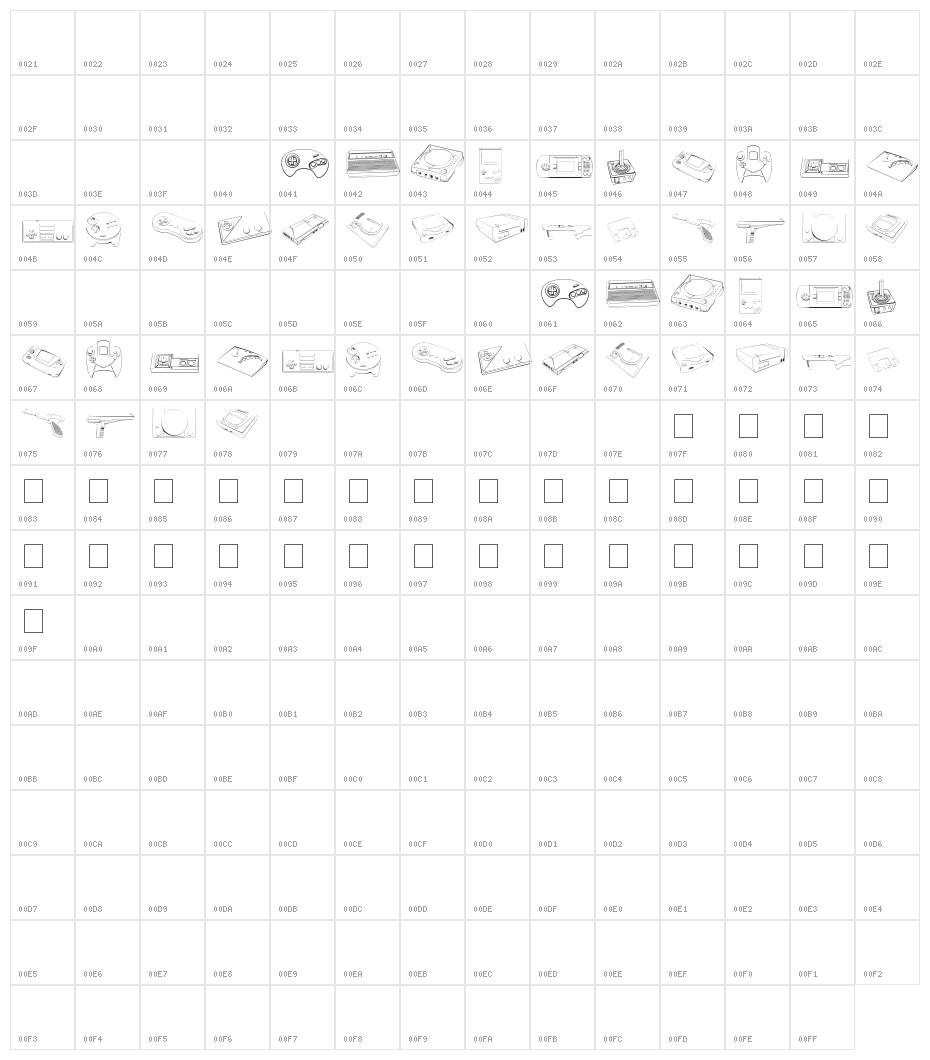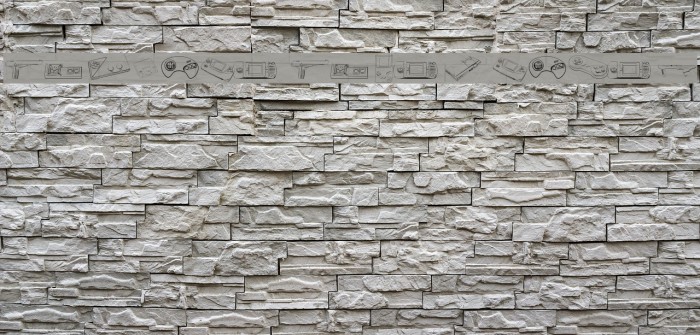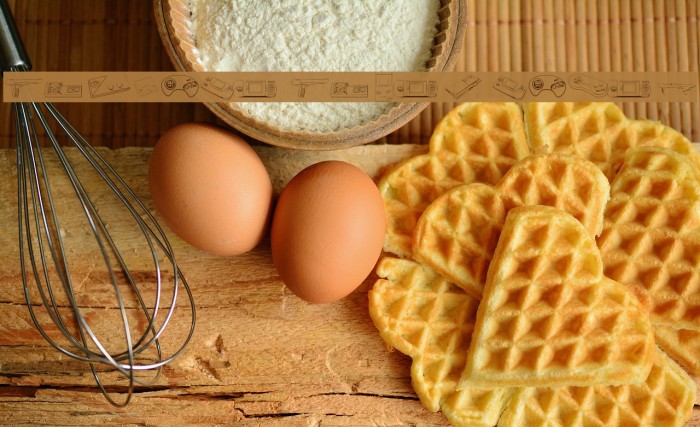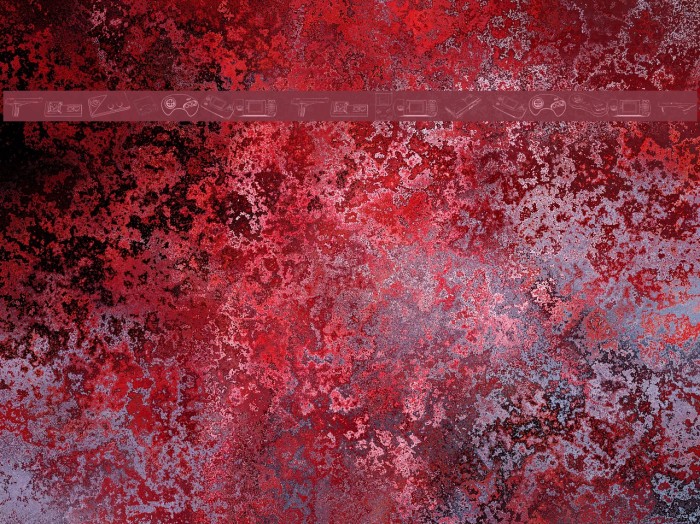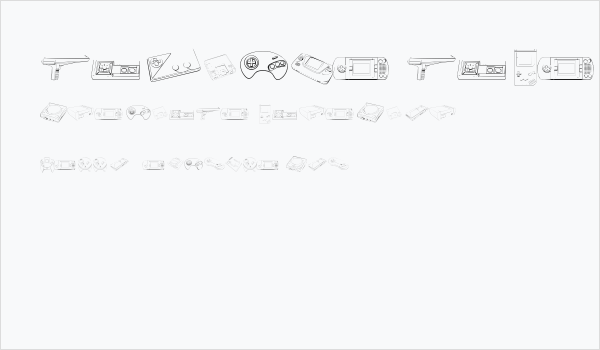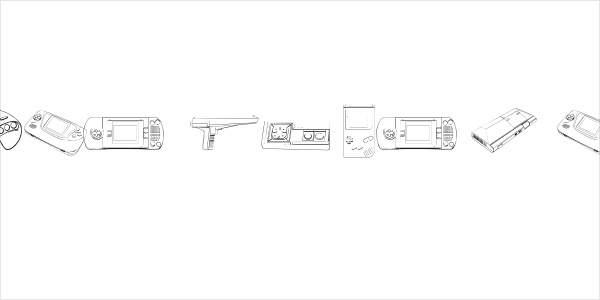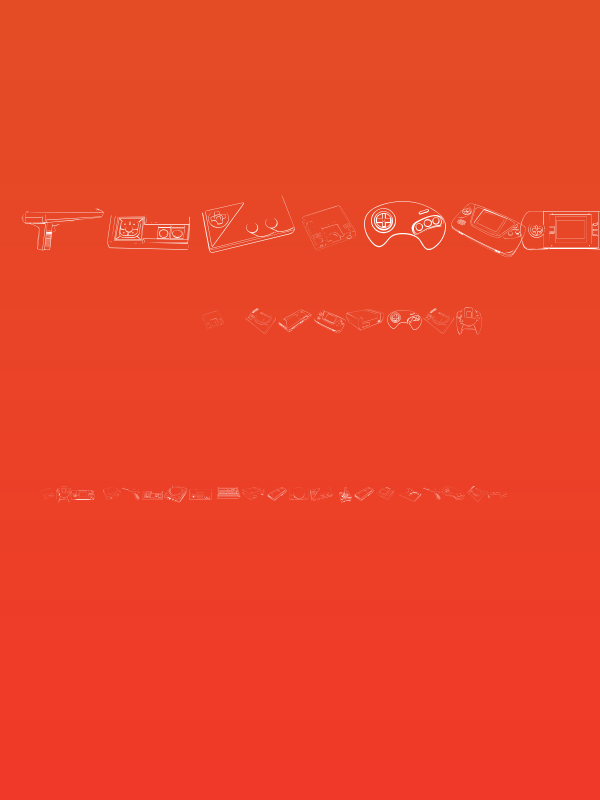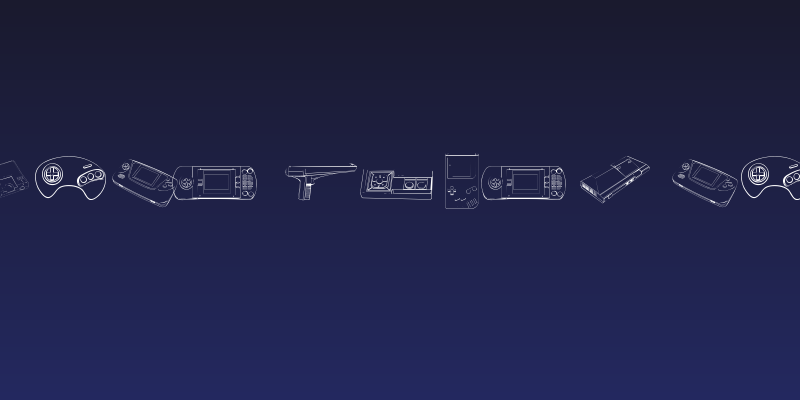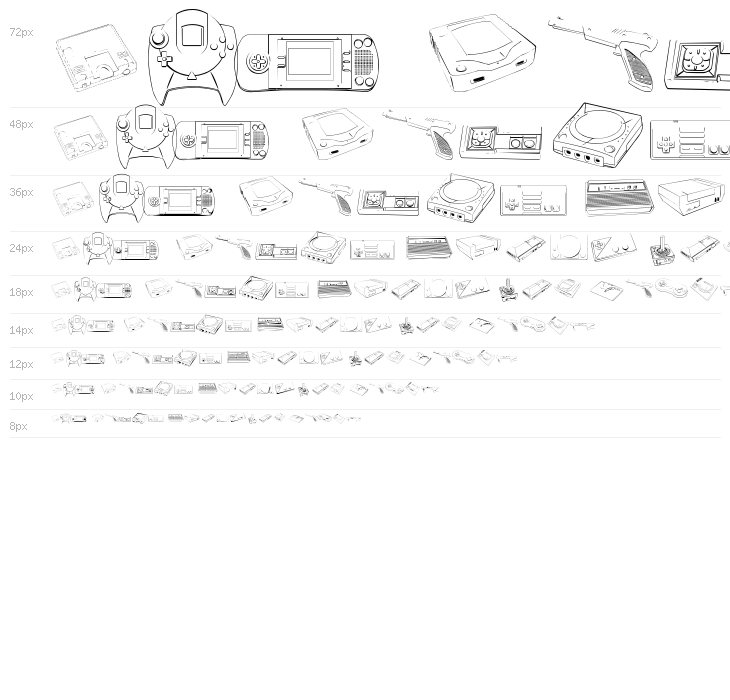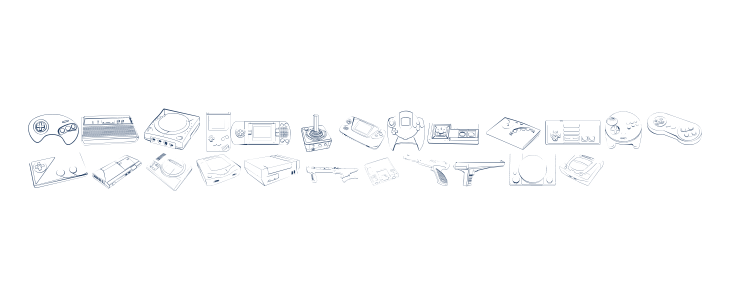
Vintage Video Games Font
Vintage Video Games Description
A decorative display font featuring detailed line art illustrations of vintage video game consoles and controllers representing each character. The glyphs are highly illustrative and playful, with each letter or symbol depicted as a unique retro gaming device, making the font visually engaging and nostalgic.
| Overall Style | Decorative, Nostalgic, Playful |
| Use Case | Headlines, Posters, Themed Graphics, Logos |
| Proposed Projects | Retro gaming posters, themed event invitations, nostalgic branding, children's media, collector's merchandise, video game cafes. |